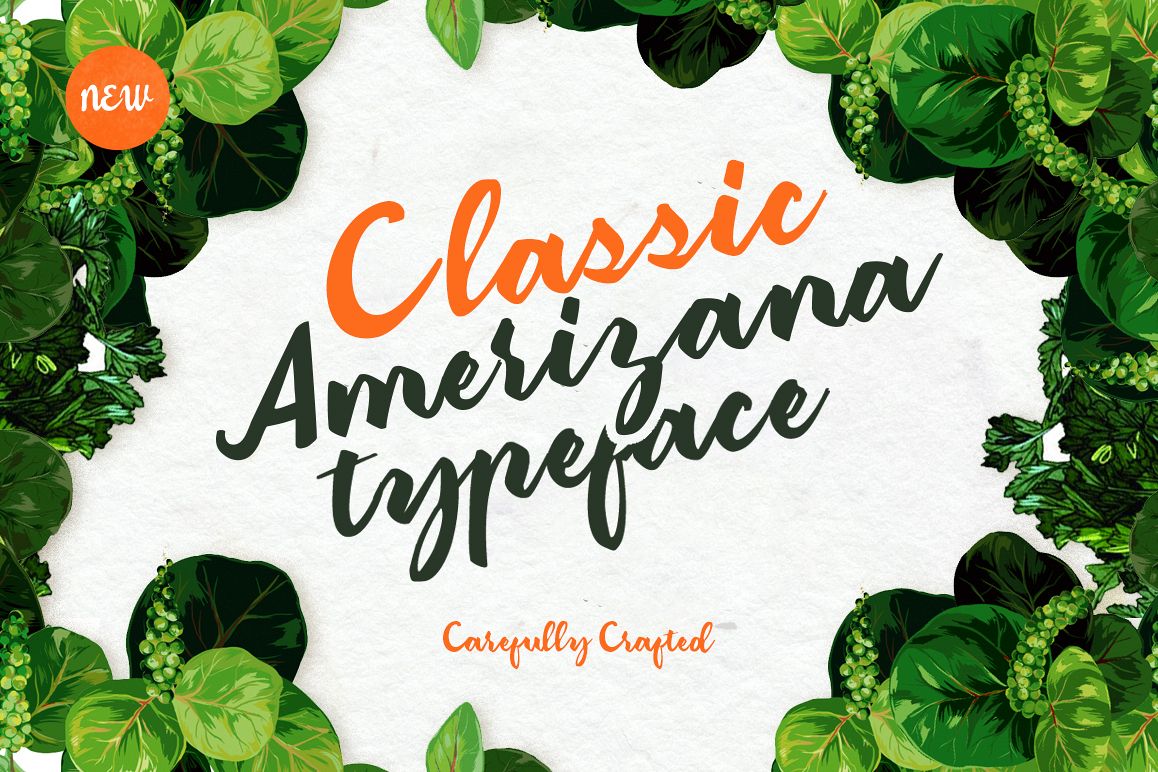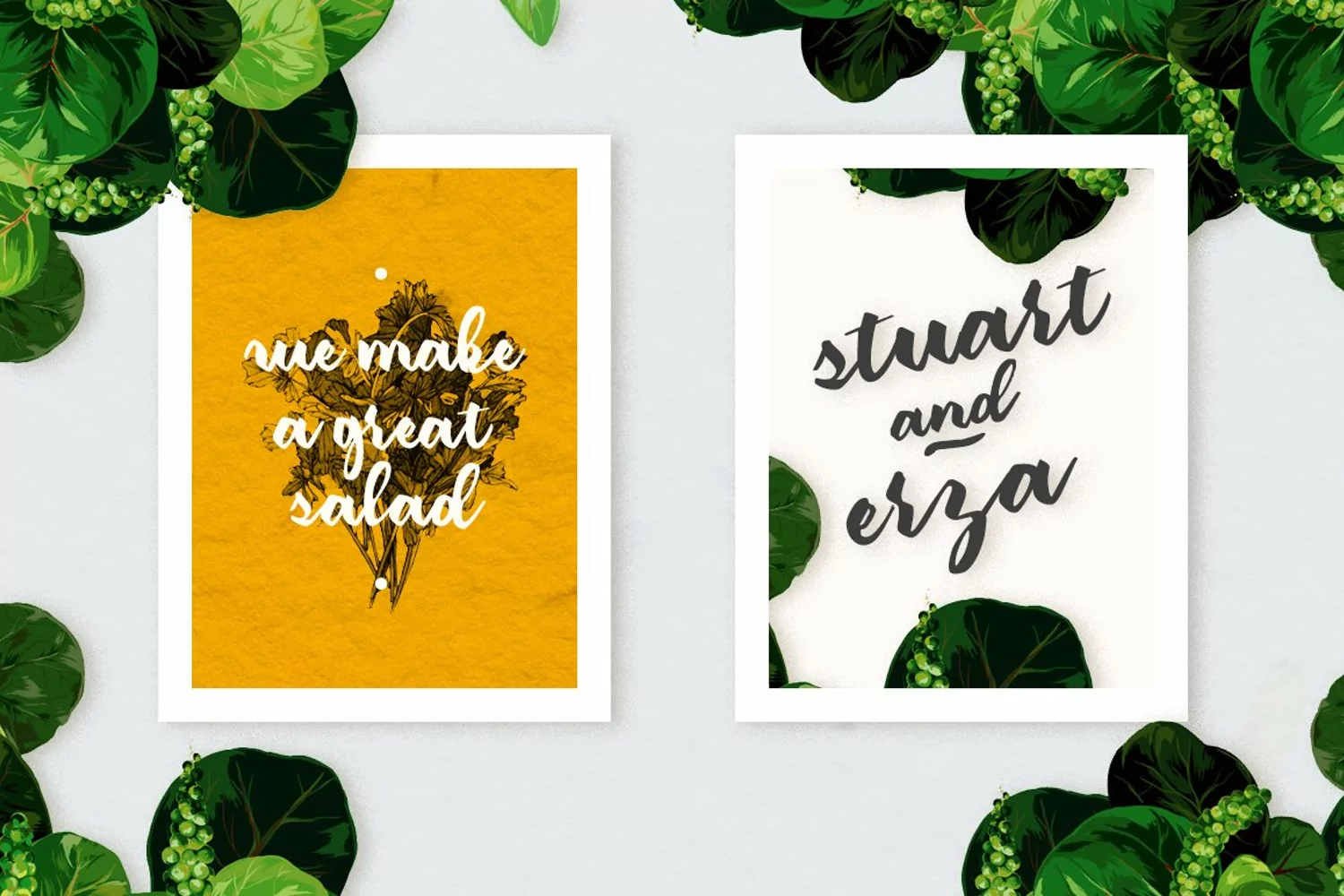
Amerizana is a starter pack from Amerizana Font Family. This new font family includes a caps and script. Try Amerizana Regular for book covers, stationery, marketing, magazines, film, logo, branding, poster and other printing design.